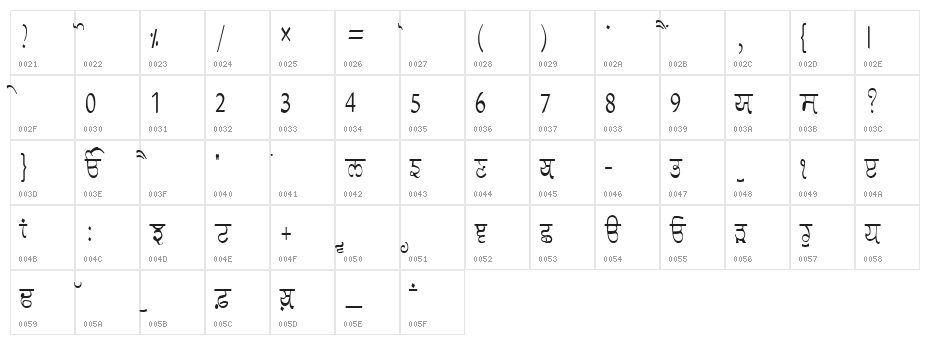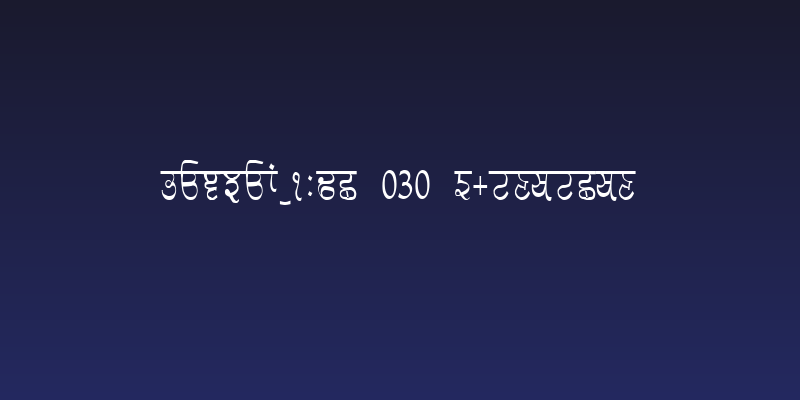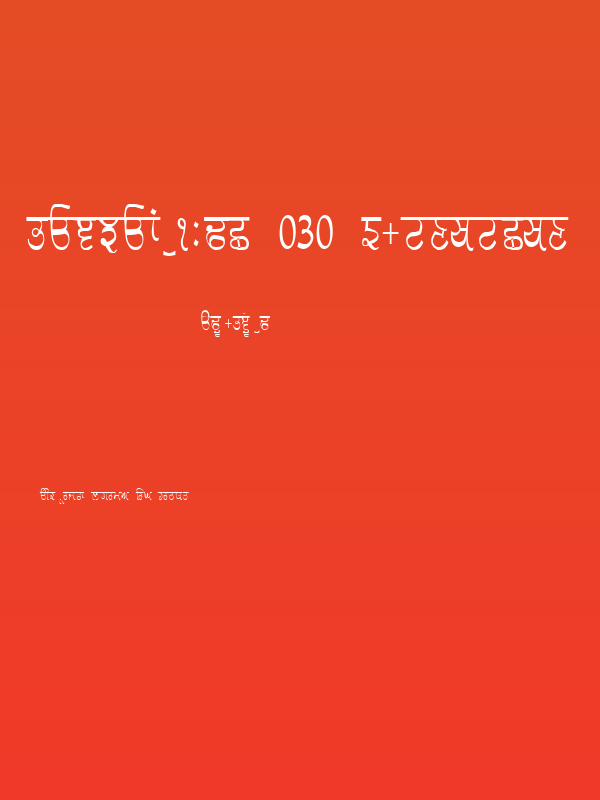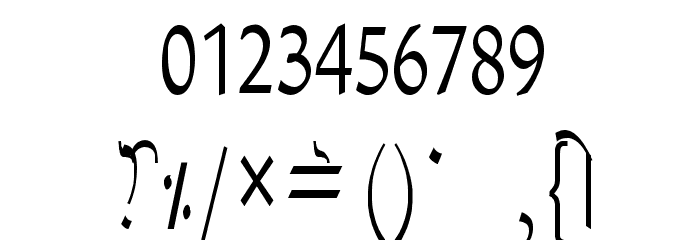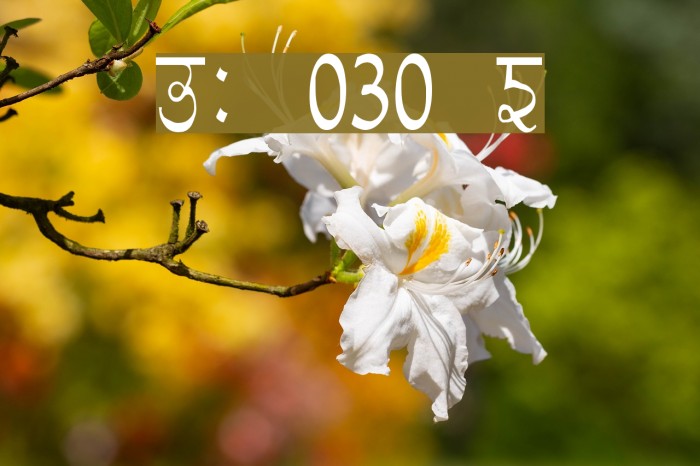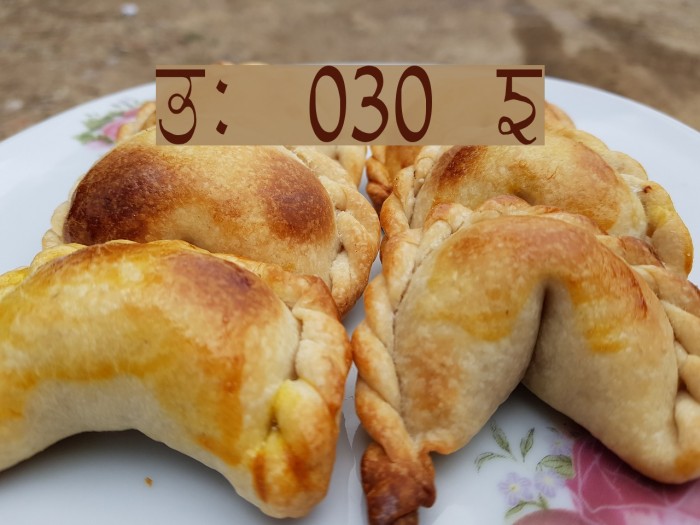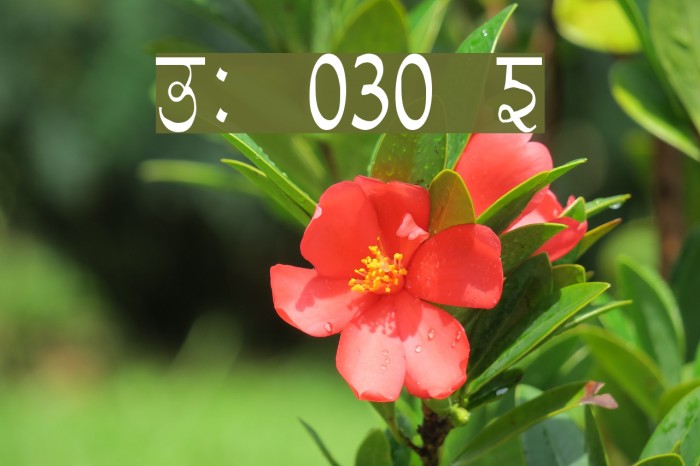
GurmukhiLys 030 Condensed Font
GurmukhiLys 030 Condensed Description
This font is a Gurmukhi script characterized by its elegant and flowing design, typical of traditional Punjabi writing. The characters exhibit a condensed style, with a distinct emphasis on vertical strokes and a moderate contrast between thick and thin lines. The script maintains a classic appearance, with rounded edges and smooth curves, making it both readable and aesthetically pleasing. The numerals are consistent with the overall style, blending seamlessly with the script. Special characters are included, maintaining the same design ethos, ensuring a cohesive look across all elements.
| Width | Condensed |
| Overall Style | Classic |
| Use Case | Headlines, Body text, Cultural projects |
| Proposed Projects | Ideal for cultural publications, educational materials, signage, and artistic projects that require a traditional Punjabi aesthetic. |